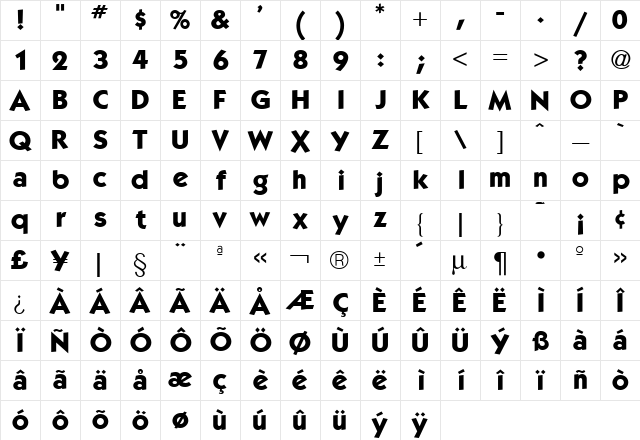
Kabel Bd Bold
Kabel Bd Family
Kabel Bd Bold
Design Context for Kabel Bd
Kabel Bd is a composed and adaptable typeface that performs quietly and consistently across a wide range of design contexts. Its bold stroke weight gives it real presence on the page.